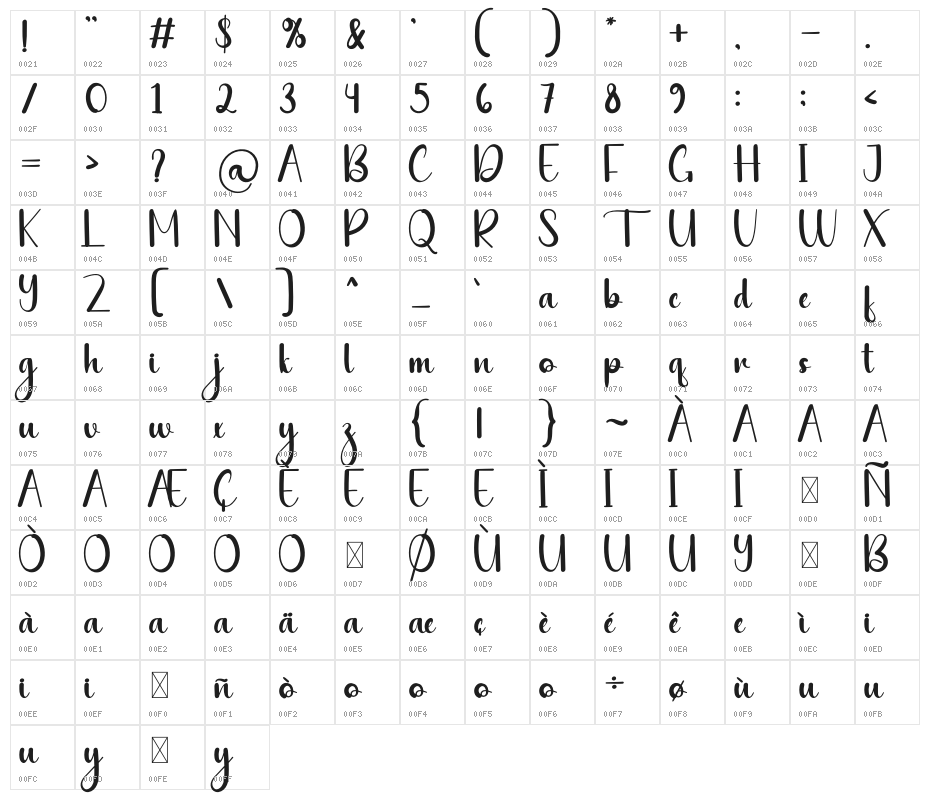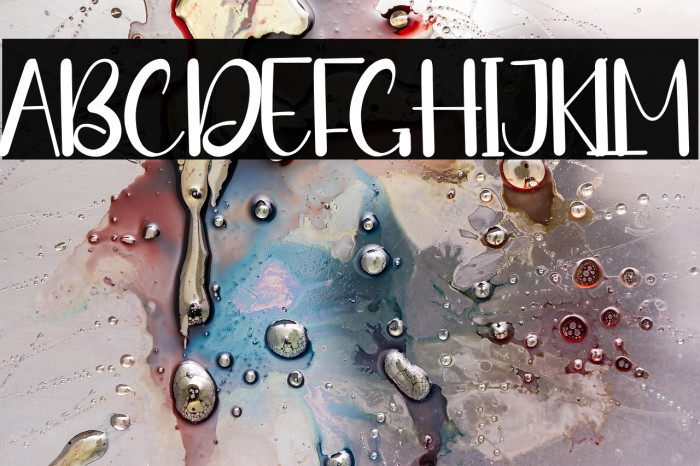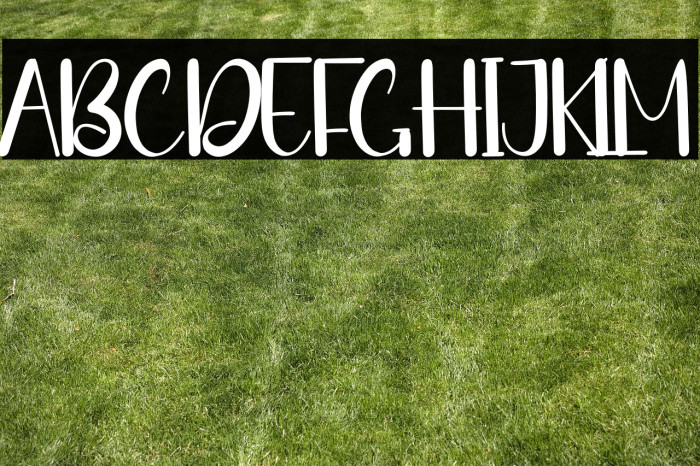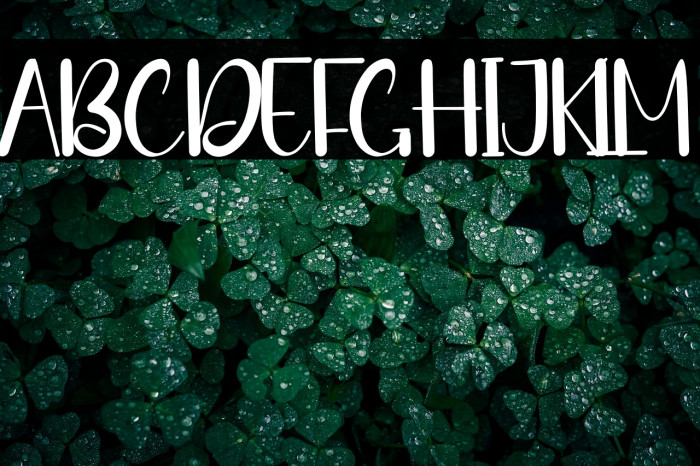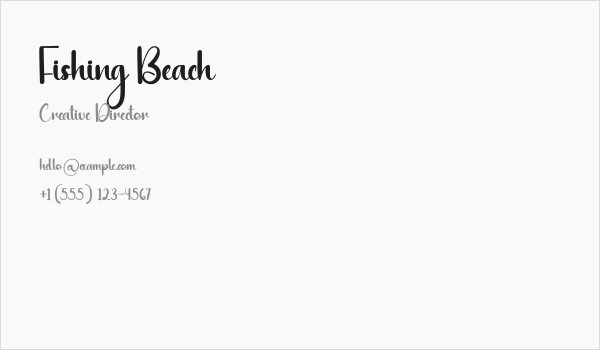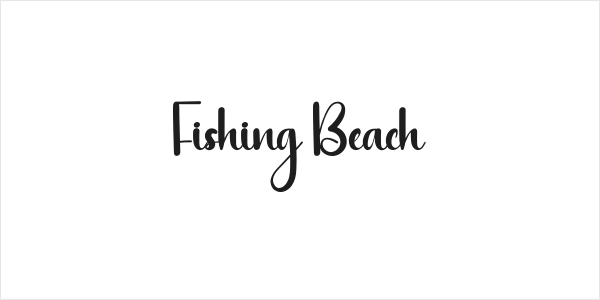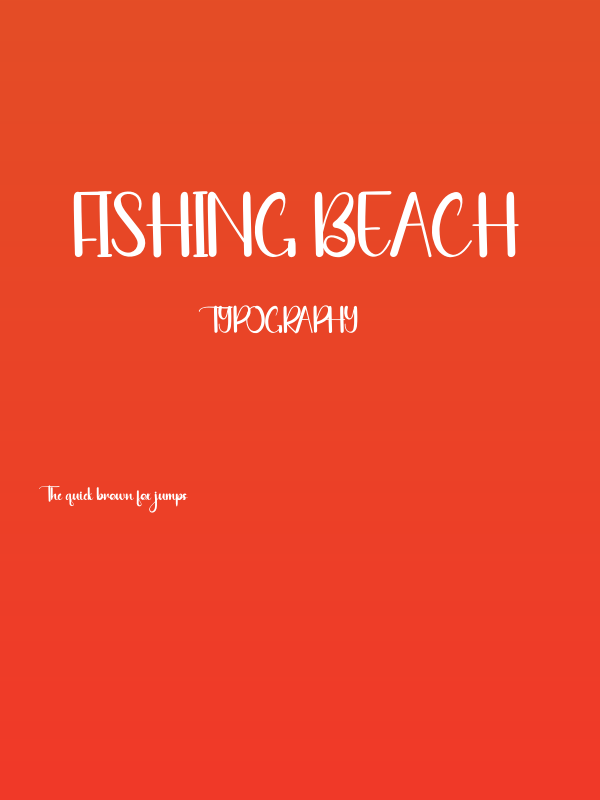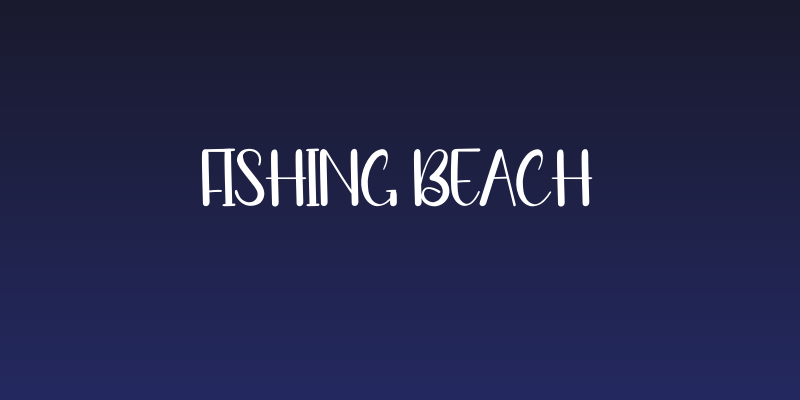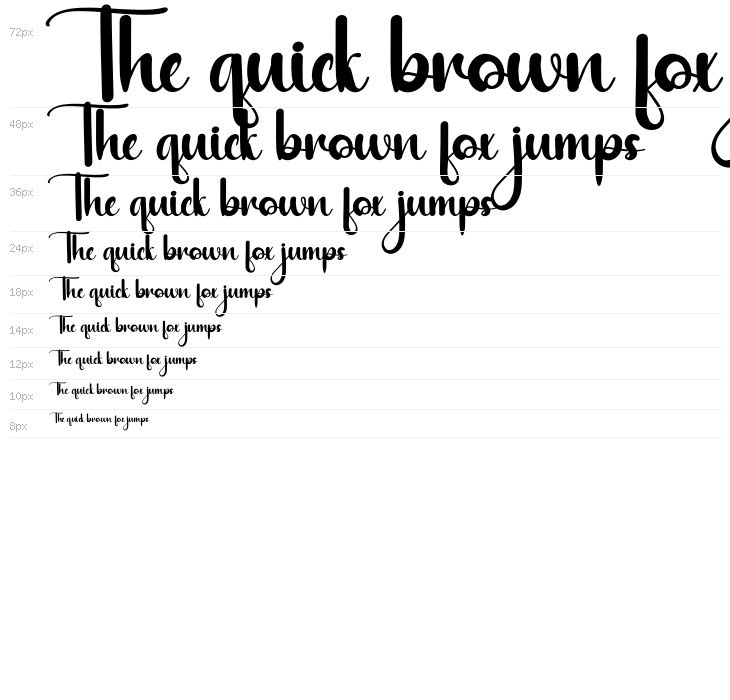
Fishing Beach Font
Fishing Beach Description
A playful and decorative script font with a handwritten style, featuring smooth curves and a casual appearance.
| Use Case | Logos, headlines, decorative text. |
| Proposed Projects | Greeting cards, invitations, playful branding. |